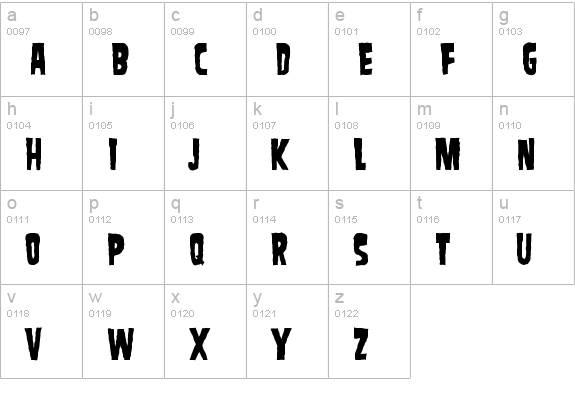
SamdanEvil Font Details
Introducing SamdanEvil, a captivating and edgy font that exudes a mysterious aura, perfect for adding a touch of darkness and intrigue to your designs. This unique typeface combines bold, sharp lines with an enticingly sinister twist, making it the ideal choice for projects that demand attention and leave a lasting impression. SamdanEvil font is not only visually striking, but it also offers versatility in its usage. Whether you're designing a haunting logo, a chilling poster, or a spine-tingling book cover, this font will effortlessly elevate your creations to new heights. Its distinct character set includes uppercase letters, numerals, and a range of punctuation marks, allowing you to convey your message with precision and style. What makes SamdanEvil even more enticing is the fact that it is freely available to download at FontsMarket.com. Yes, you read that right! This high-quality font can be yours without spending a dime, making it a valuable asset for both professional designers and creative enthusiasts alike. So why wait? Embrace the darkness and download SamdanEvil font today from FontsMarket.com. Unleash your creativity, captivate your audience, and let this font cast its spell on your designs.